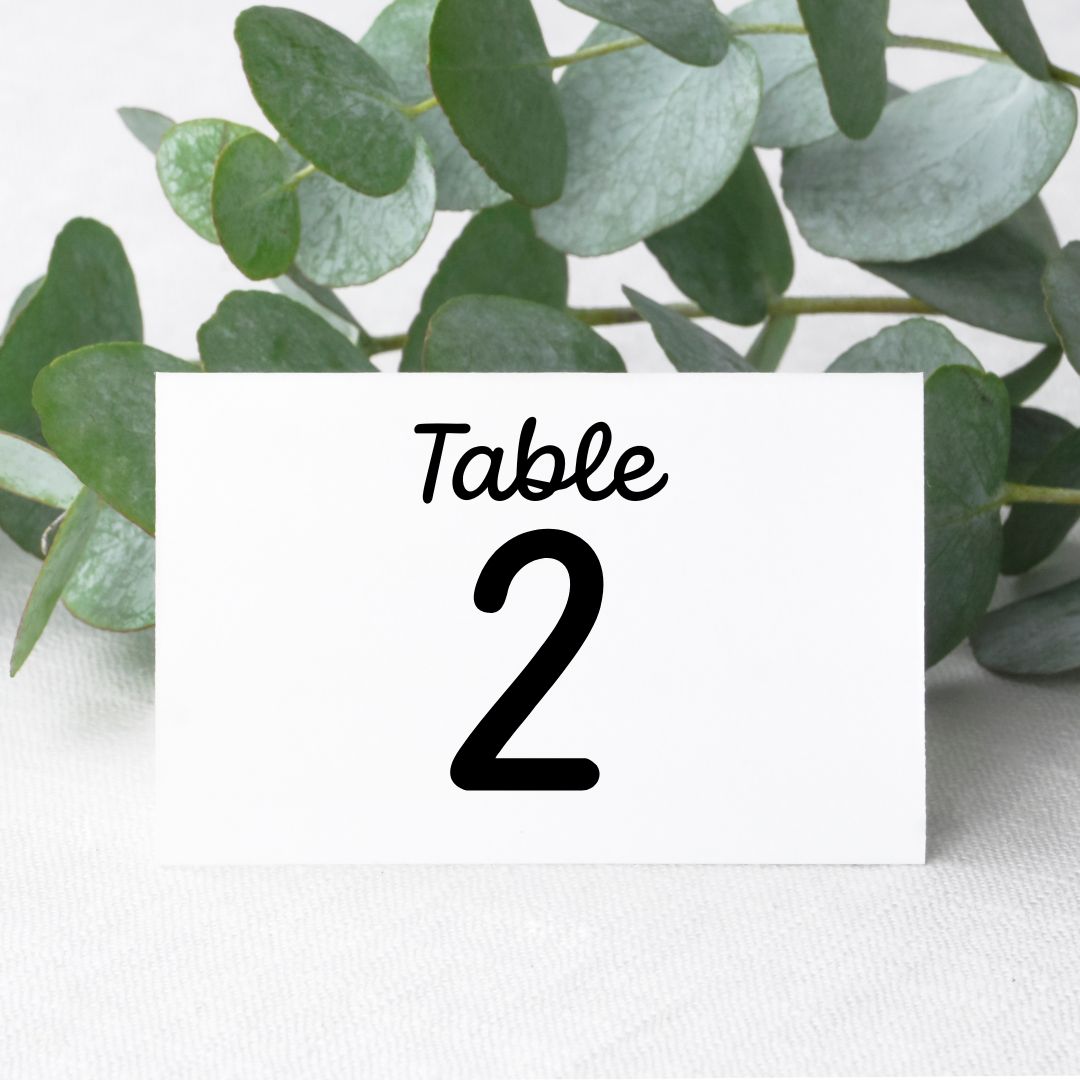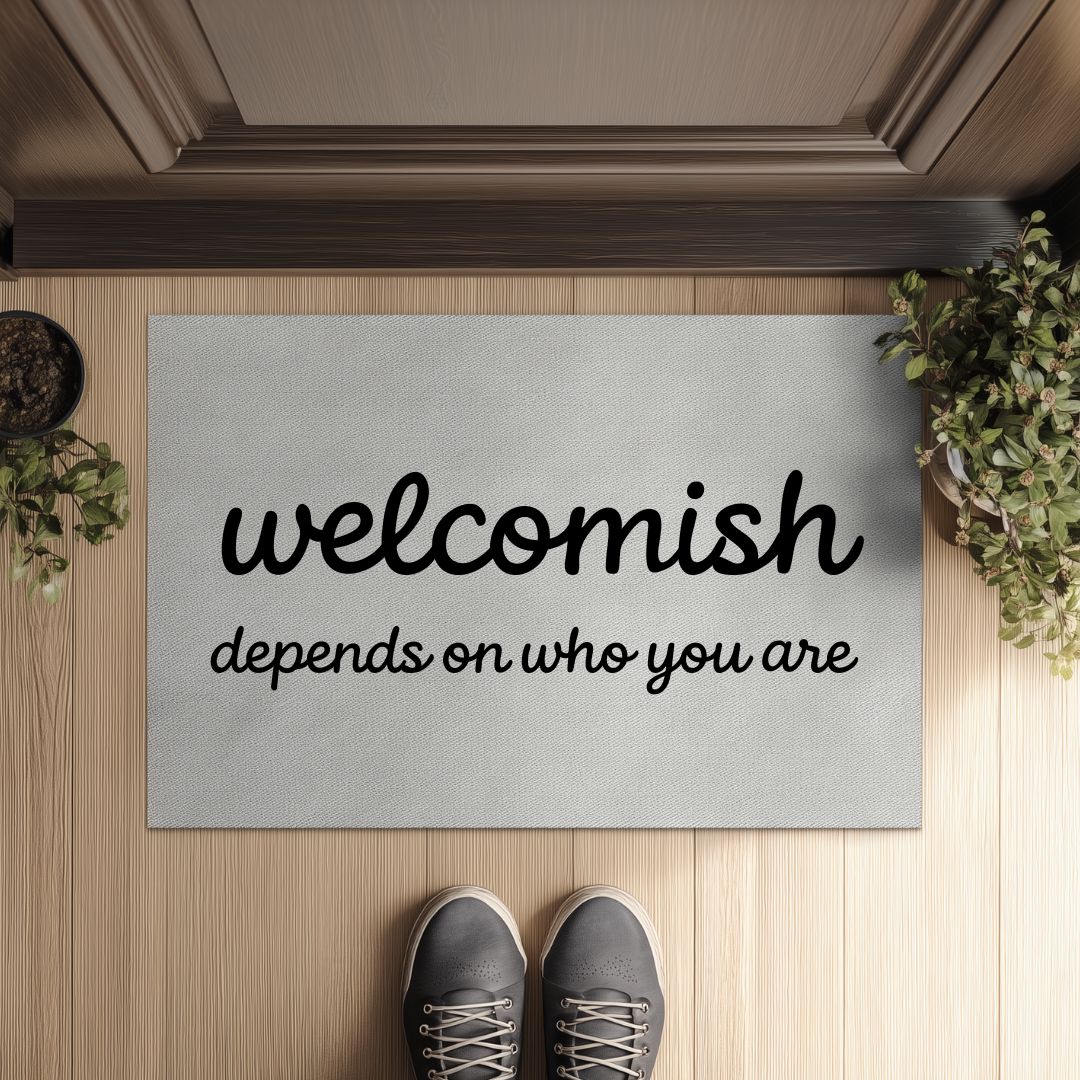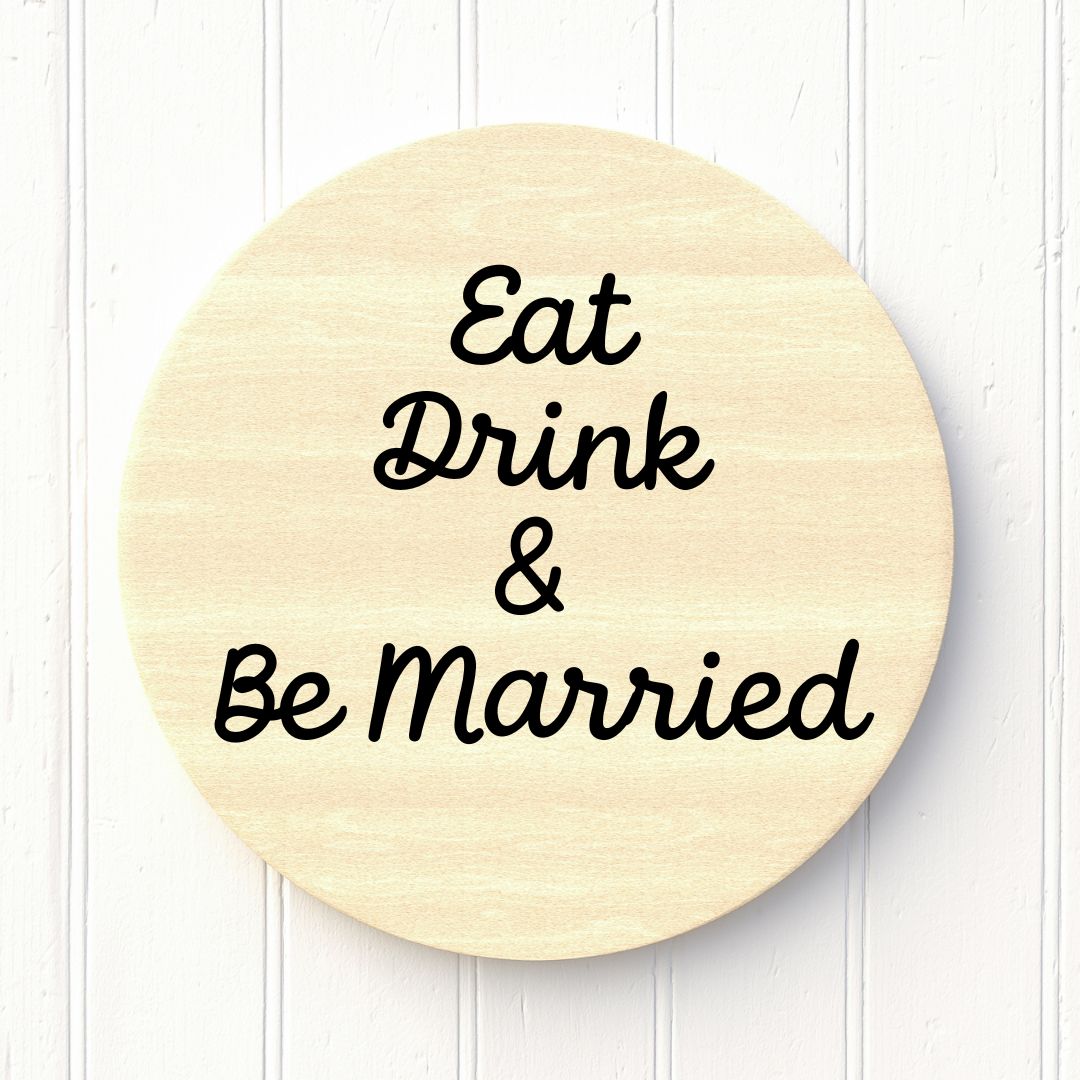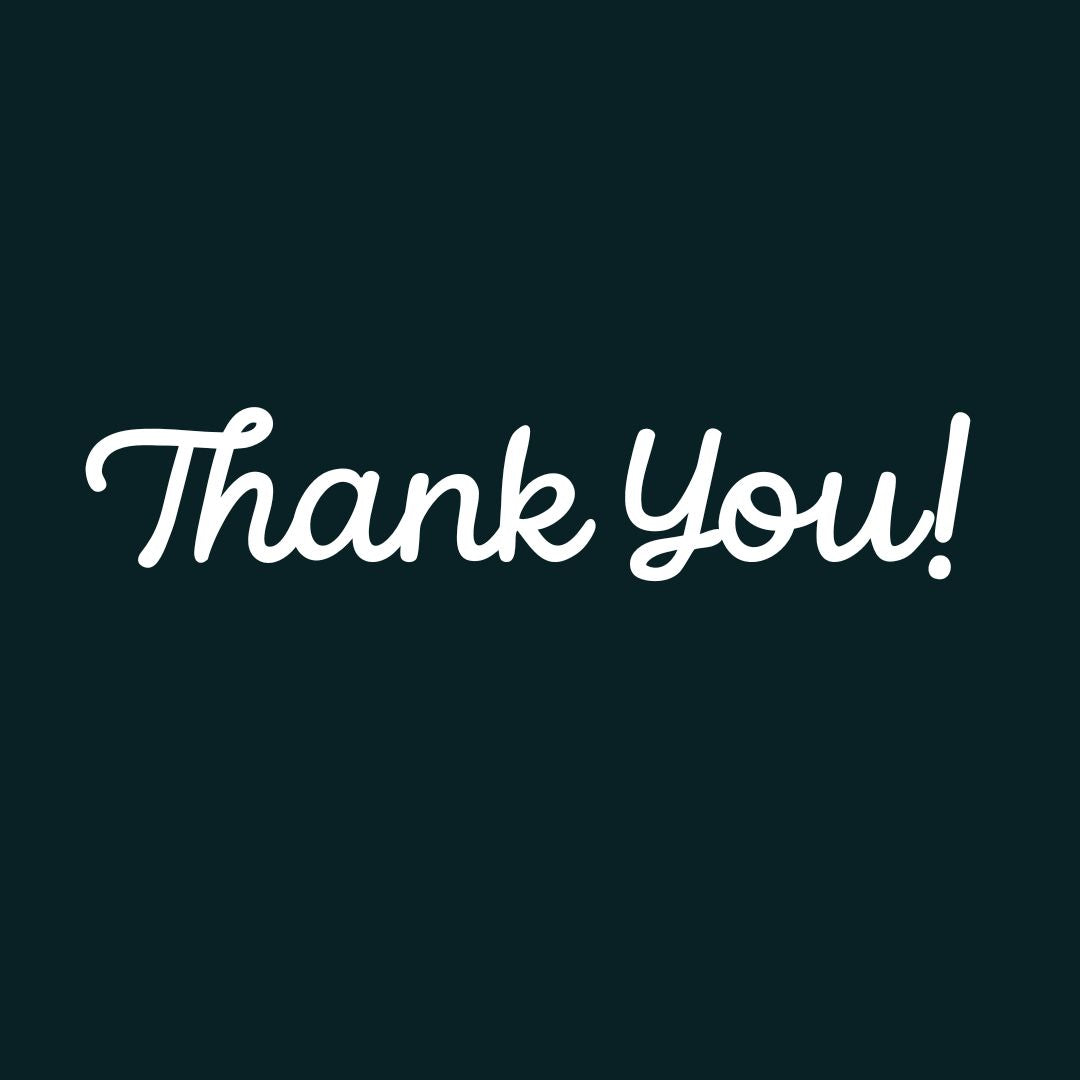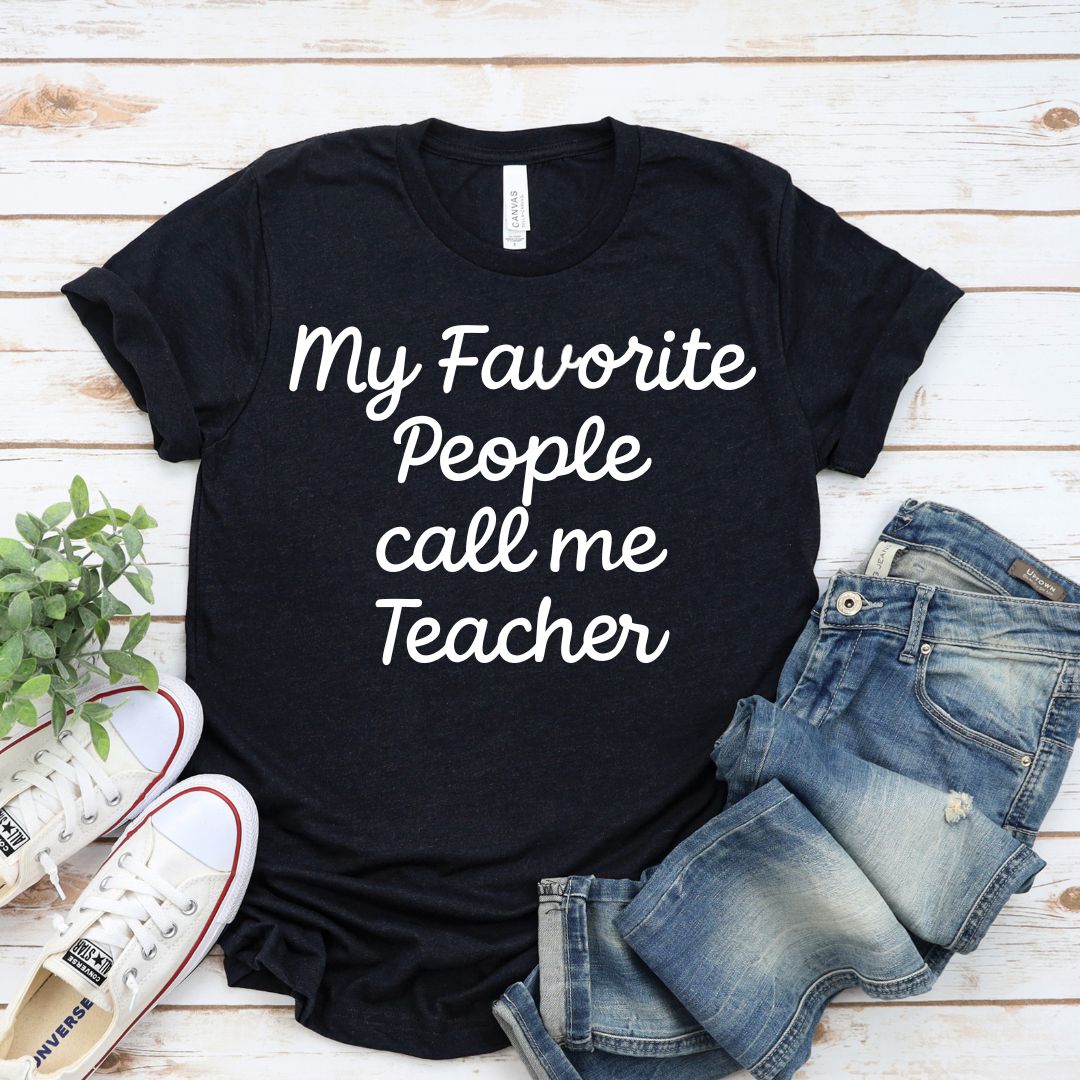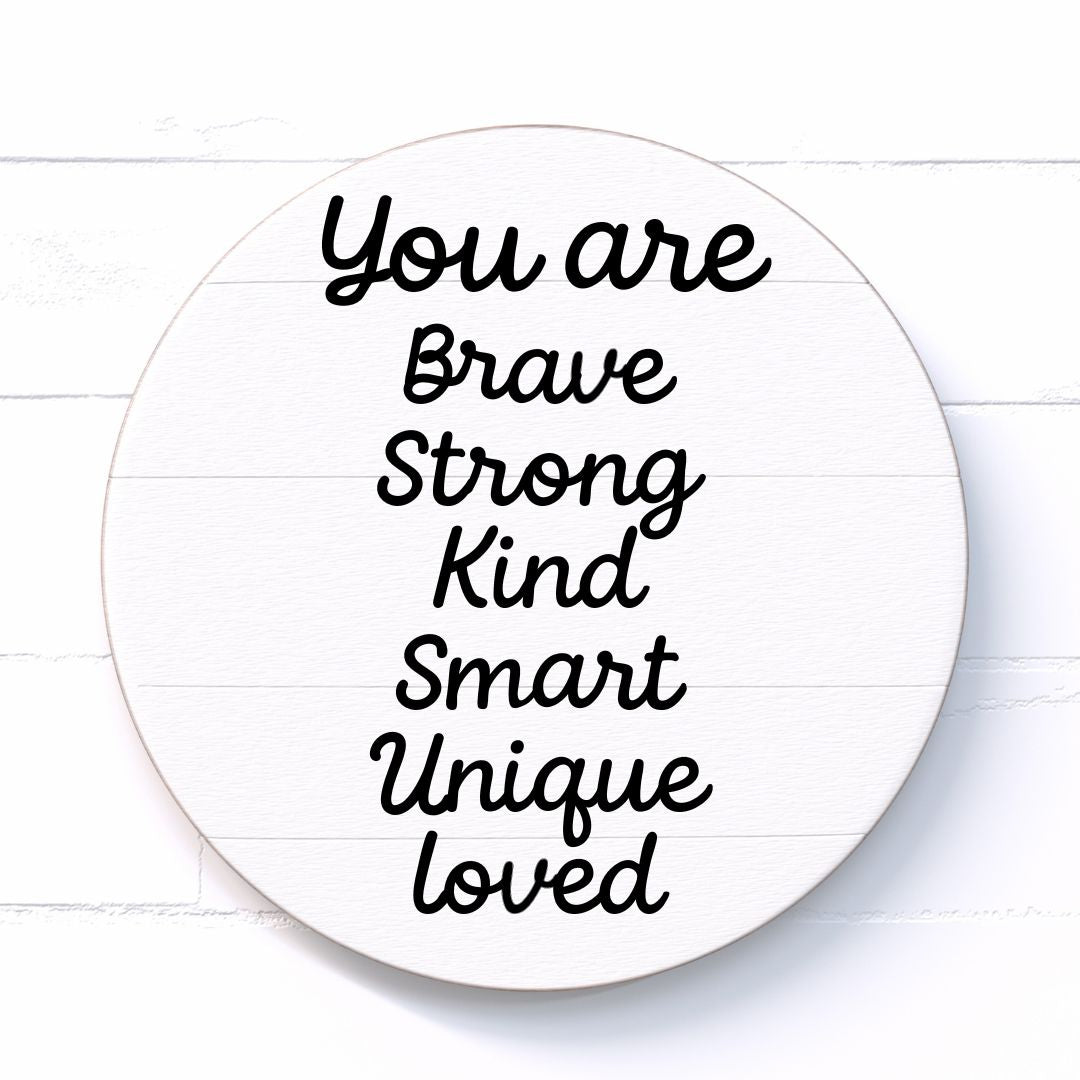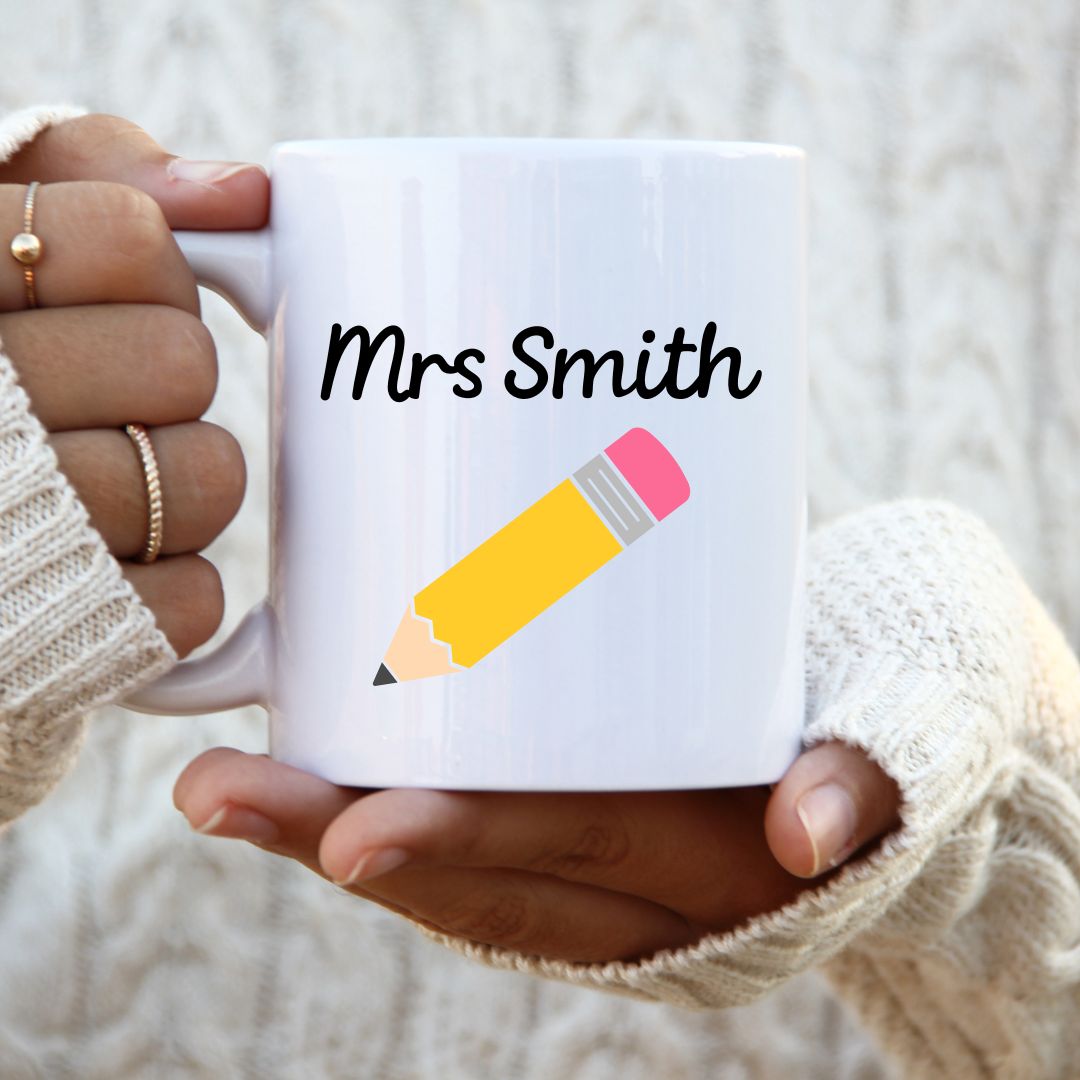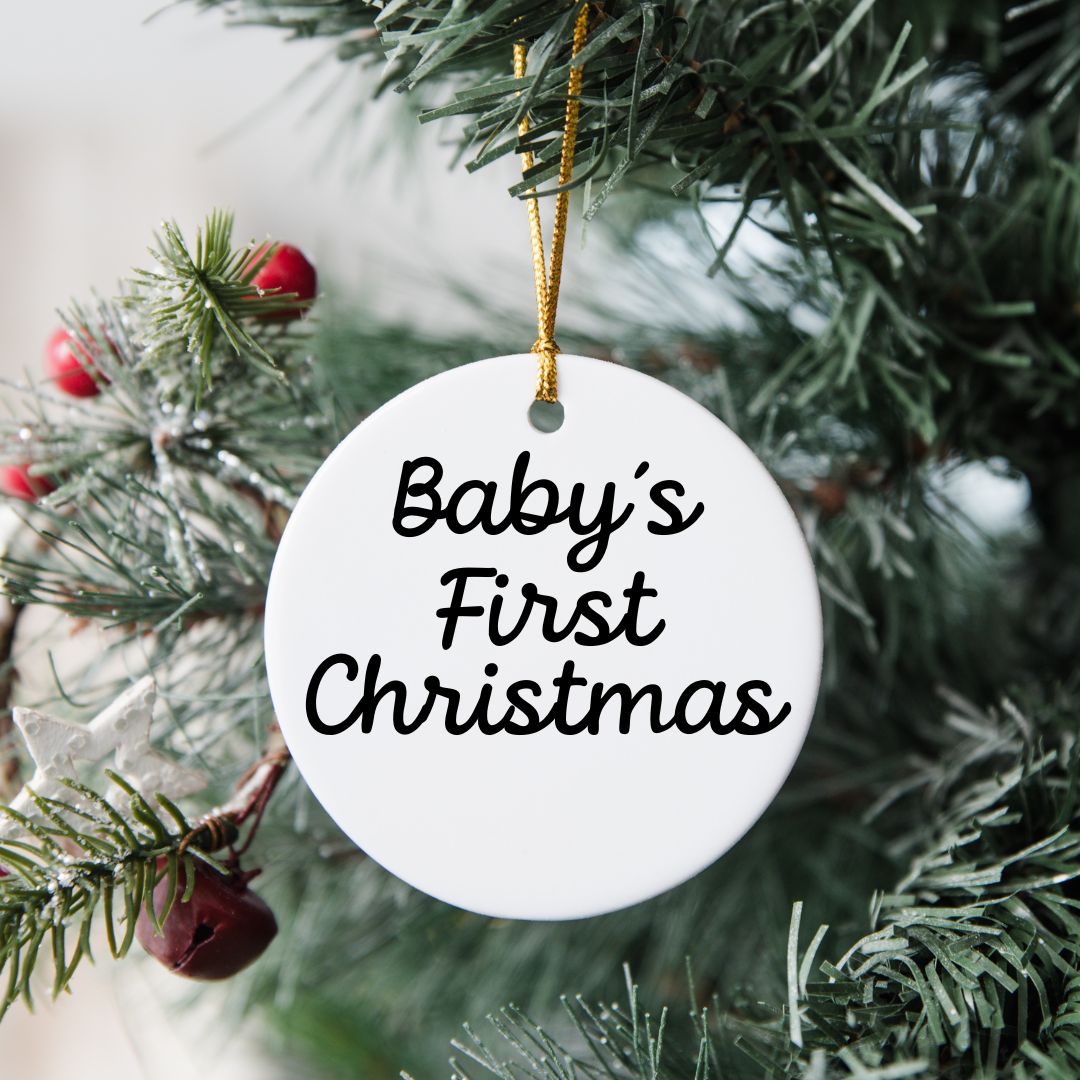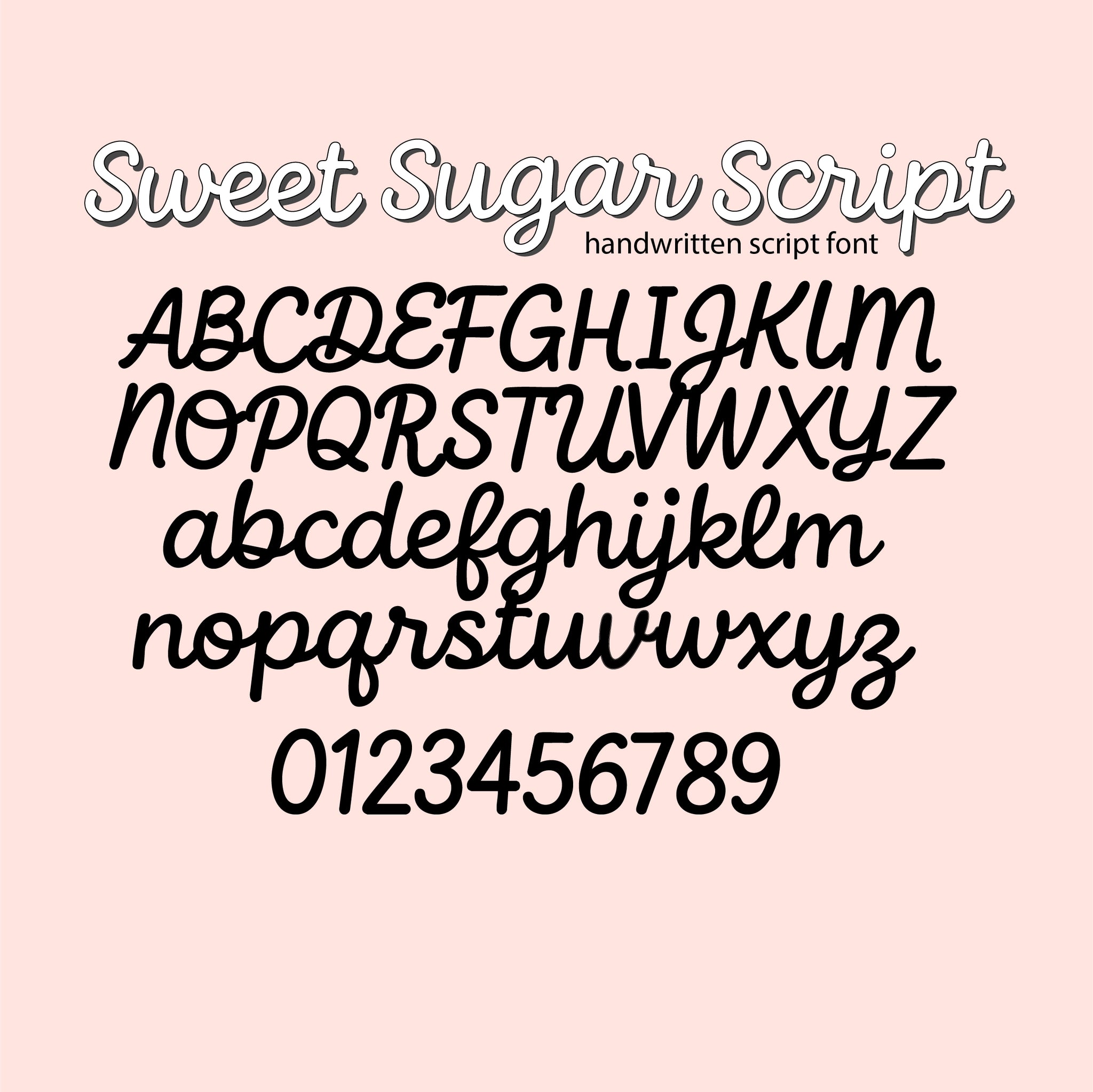
Sweet Sugar Script Font
Sweet Sugar Script – Playful Handwritten Script Font
Sweet Sugar Script captures the feel of casual hand lettering with perfect curves and a monoline pen stroke. Whether you’re making wedding invitations, social media posts, personalized gifts, or classroom decor, this handwritten script font helps your design feel warm, stylish, and personal.
• Uppercase & lowercase letters
• Numbers, punctuation, and symbols
• Multilingual support (including French & Spanish characters)
• Standard ligatures
Sweet Sugar Script is perfect for crafters, designers, and small business owners who want a playful handwritten look. Ideal for Cricut and Procreate projects, this charming script font adds personality to logos, social media graphics, wedding invites, printables, and more. Teachers love it for classroom decor and learning resources. With its clean lines and whimsical style, it’s great for planners, stickers, and creative branding.